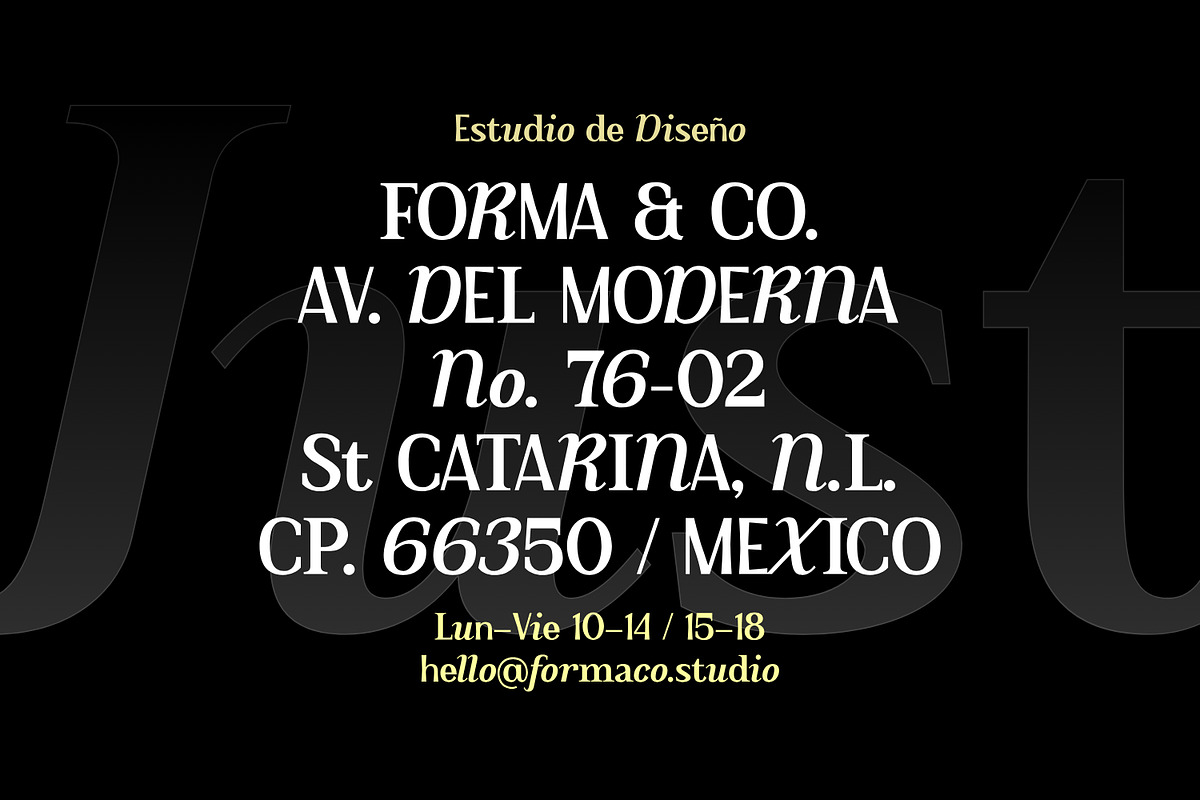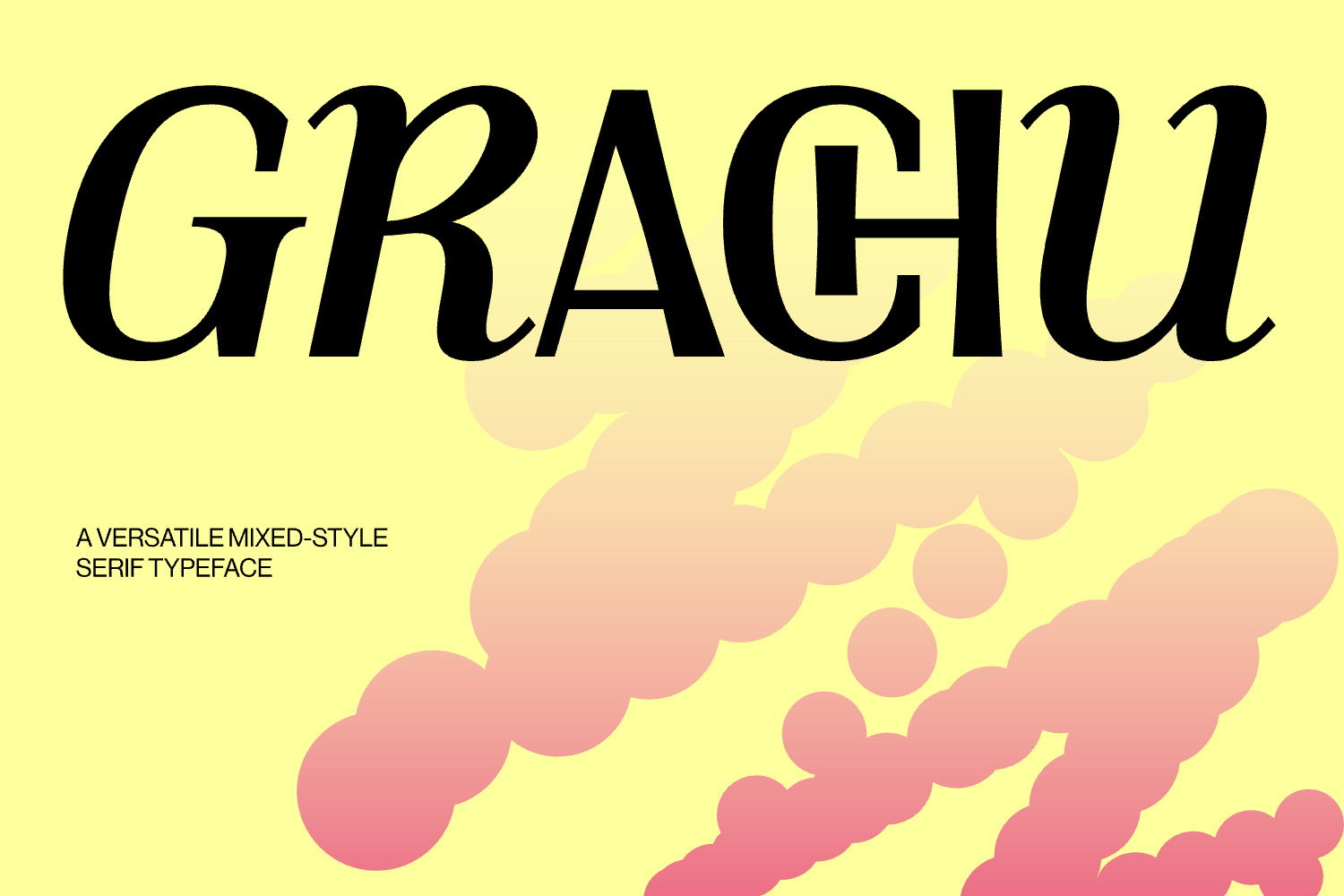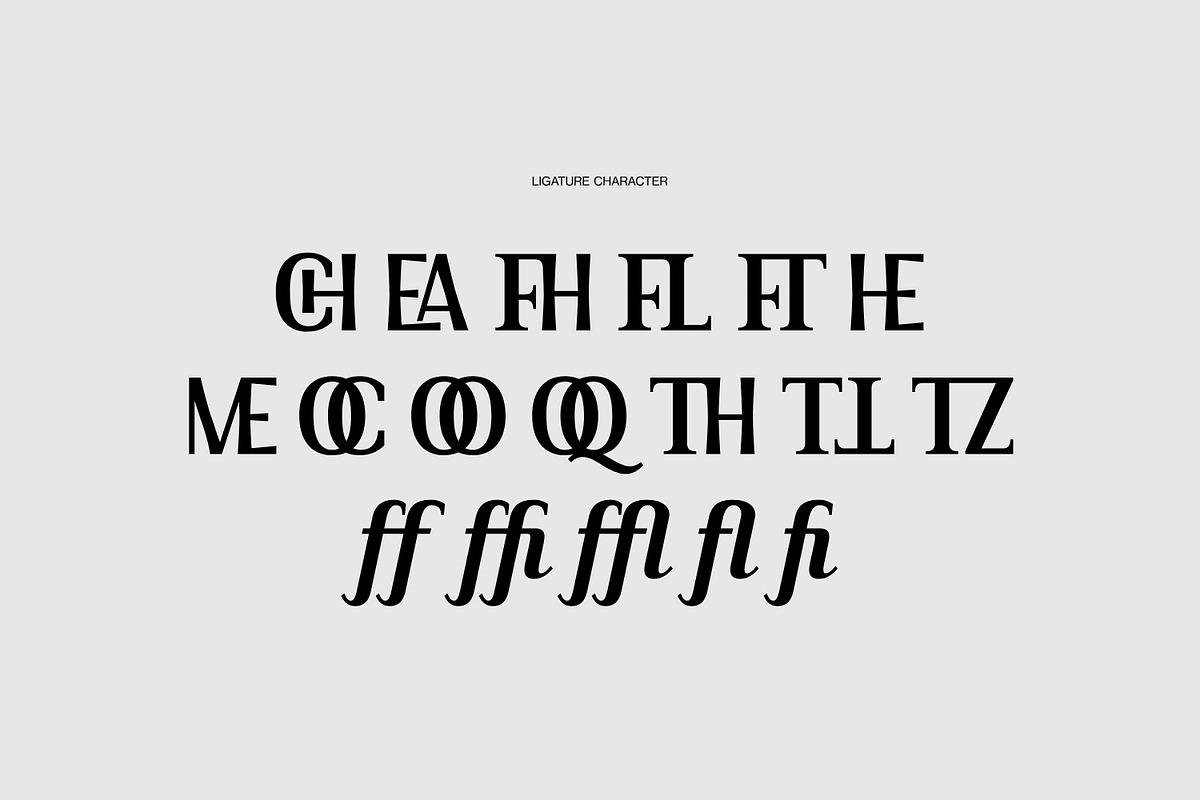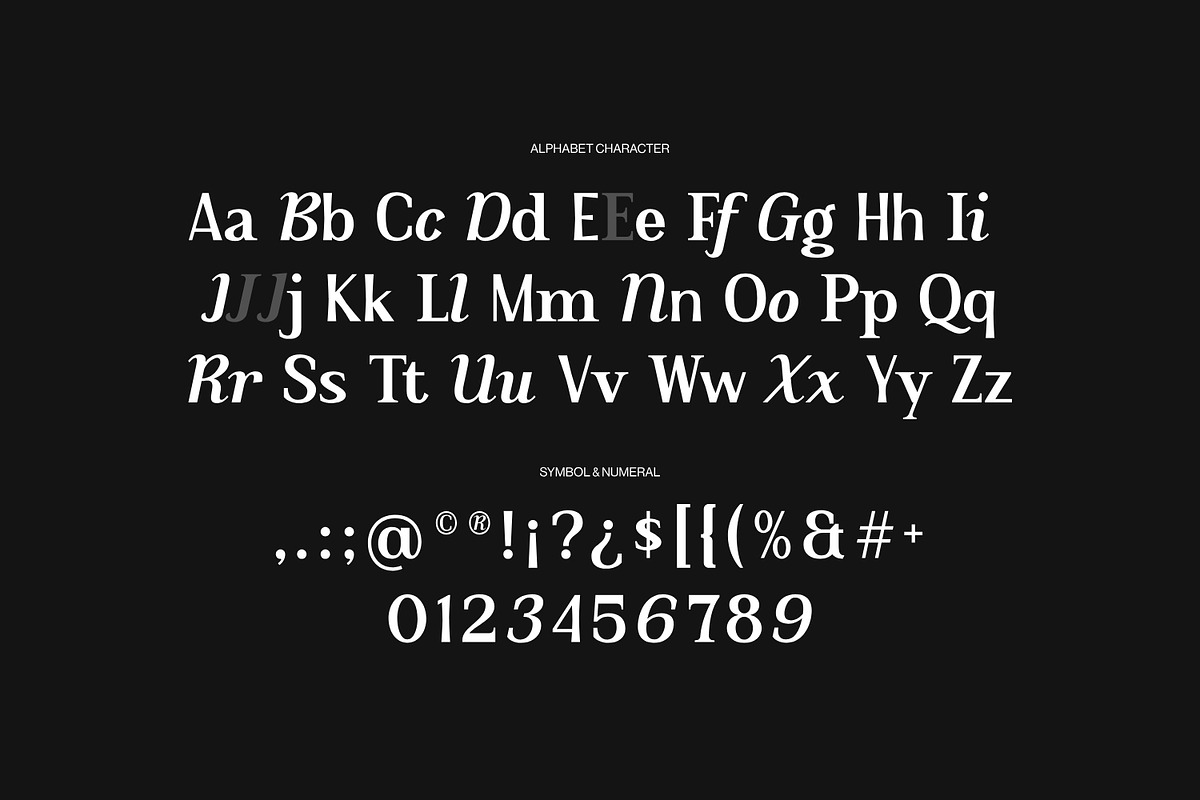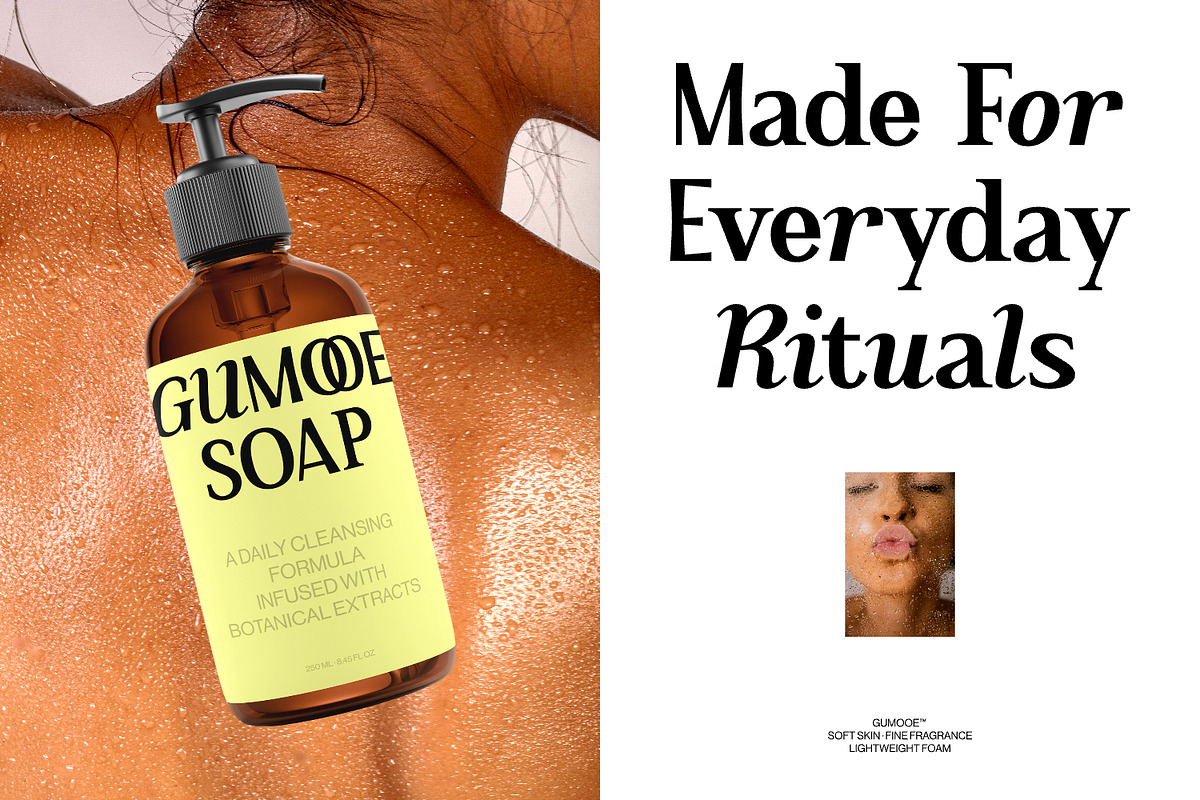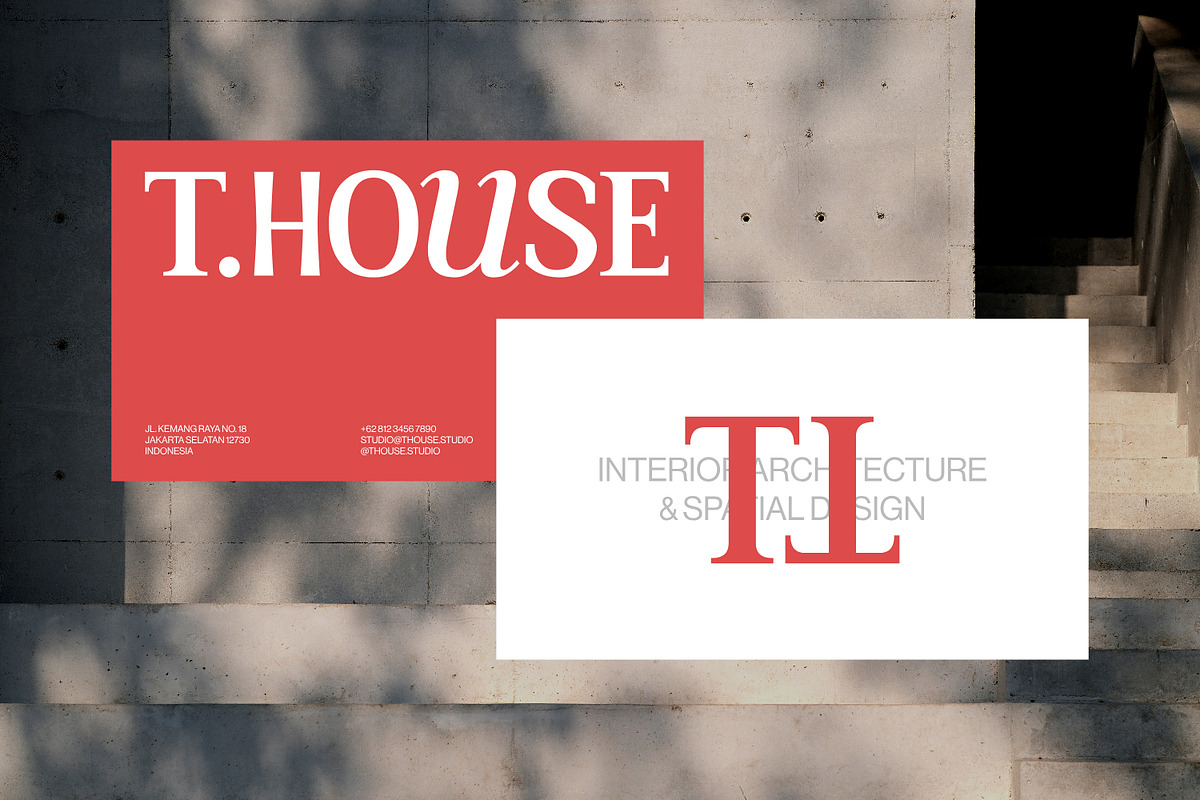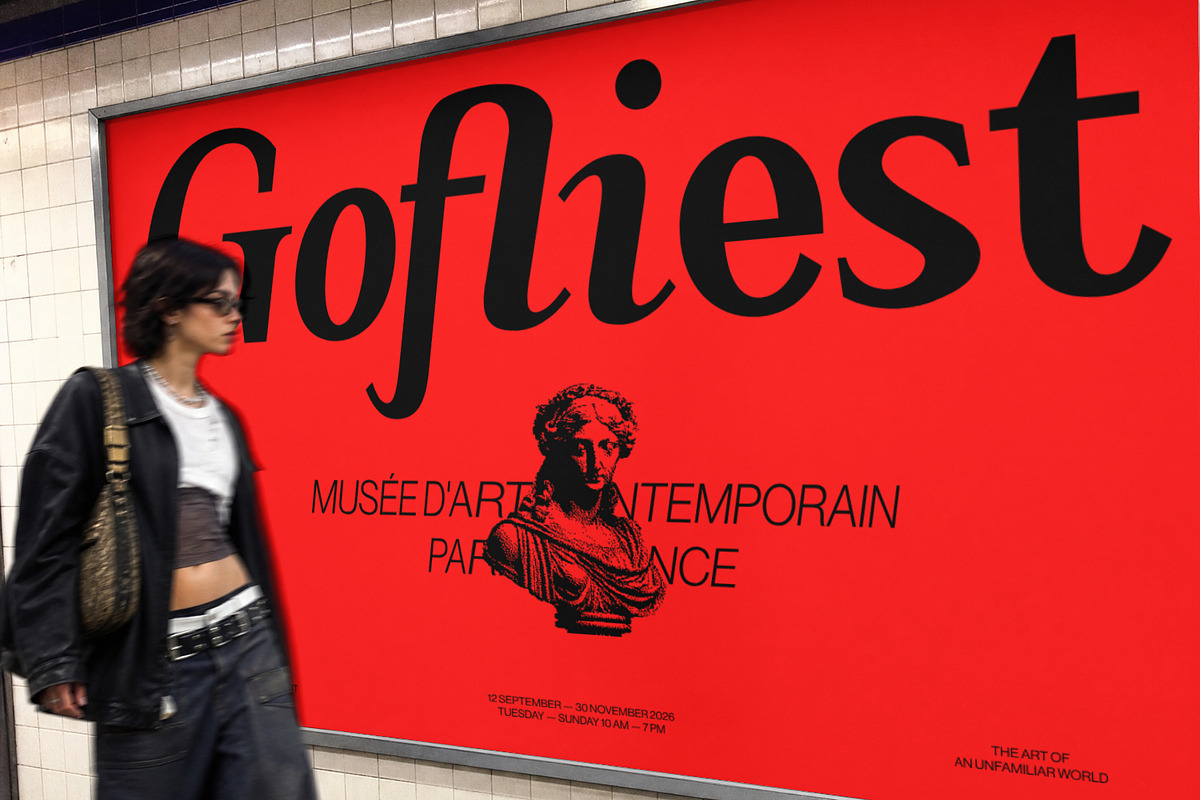
Grachu - Mixed-Style Serif Font
Grachu is a versatile mixed-style serif typeface that uniquely blends upright roman forms with flowing, italicized calligraphic elements in a single font. Defined by bold high-contrast strokes, fluid letterform curves, and distinctive interlocking ligatures, it achieves a striking harmony between contemporary minimalism and expressive artistic character. Its wide variety of glyph alternates and expressive ligatures allow designers to effortlessly customize headlines, logos, and high-impact branding. Whether you are crafting minimalist architectural identity systems, high-end editorial posters, modern cosmetic labels, or chic lifestyle packaging, Grachu offers a bold yet sophisticated voice for creative display work.
- Custom ligatures and alternate characters
- Numerals, punctuation, symbols